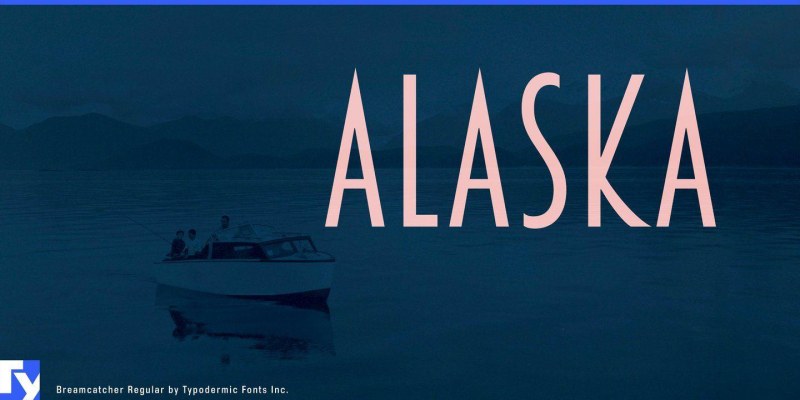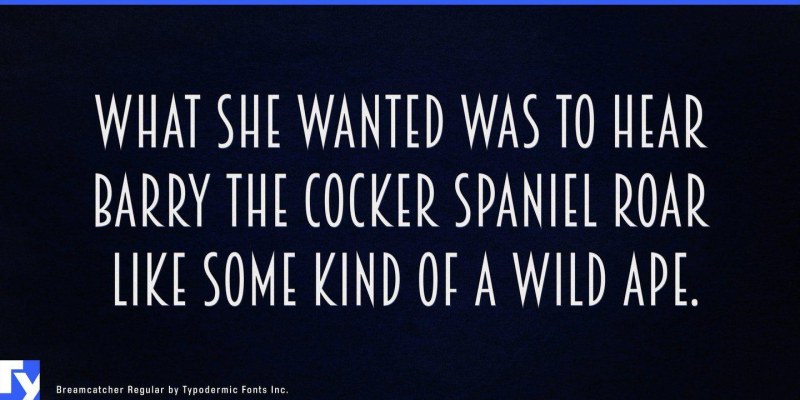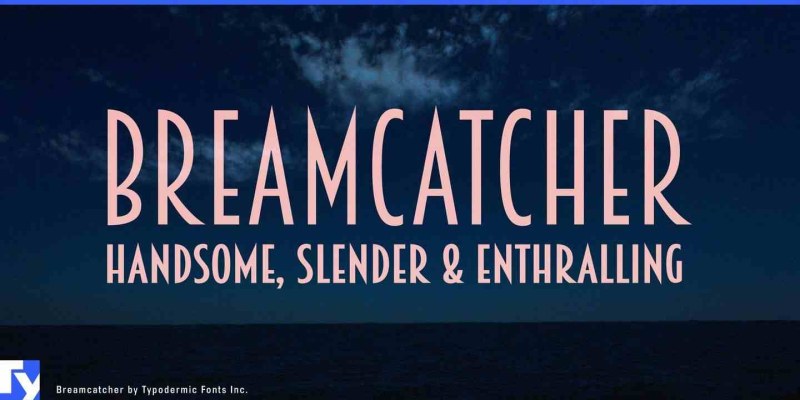
Breamcatcher Font
Step into the 1920s with Breamcatcher, the typeface that’ll transport you to the Art Deco era. Inspired by the smooth notes of “With Every Breath I Take” from the Bing Crosby/Kitty Carlisle classic “Here Is My Heart,” Breamcatcher is the epitome of class and style.
Don’t be fooled by compact sans-serif typefaces that lack personality; Breamcatcher is a slow jam that’ll grooves you in no time. With loose spacing and lazy strokes, your message will take on a breezy, reassuring voice that oozes romance.
Get ready to feel like a true Gatsby with Breamcatcher’s OpenType fractions, numeric ordinals, and a wide range of included currency symbols. Available in Regular, Italic, and Bold-Italic styles, this typeface is perfect for any occasion.
So whether you’re advertising the latest luxury goods or want to add a touch of class to your designs, Breamcatcher is the perfect choice.
Where Breamcatcher Font works best
Breamcatcher Font is built for size: event posters, hero headlines and billboard-style layouts.
High contrast display type like Breamcatcher Font reads instantly in thumbnails and motion graphics.
What is Breamcatcher Font good for?